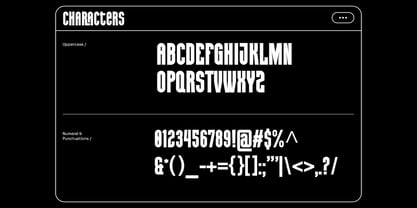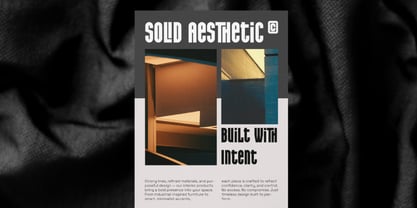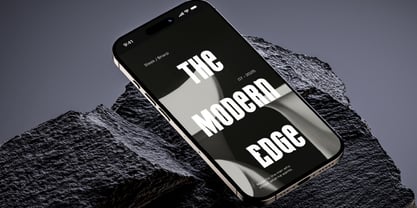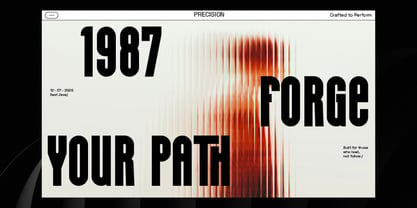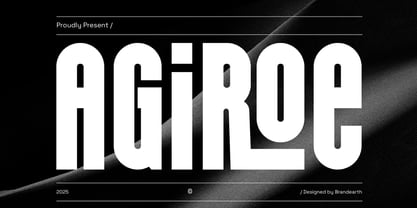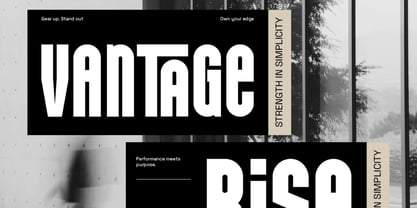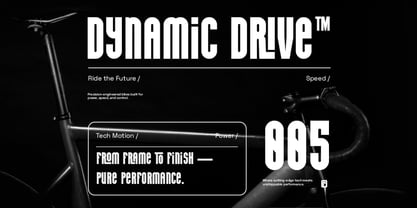
Agiroe
by Brandearth
The Agiroe Font Family was designed by Moch Rasjid Wiyono and published by Brandearth. Agiroe contains 1 styles. More about this family
Agiroe is a bold condensed sans serif typeface built for high-impact visual communication. Featuring strong vertical proportions, sharp geometric cuts, and a powerful industrial tone, this font includes uppercase letters, numerals, punctuation, and essential symbols as shown in the preview. Designed with a compact structure for maximum presence in tight spaces, it delivers clarity and dominance across large-scale typography. Agiroe is highly relevant for projects that demand strength and clarity in a condensed format. Perfect for sports branding, automotive campaigns, tech products, fitness promotions, streetwear labels, posters, packaging, and bold editorial headlines where space is limited but visual impact must remain dominant.
Designers: Moch Rasjid Wiyono
Foundry: Brandearth